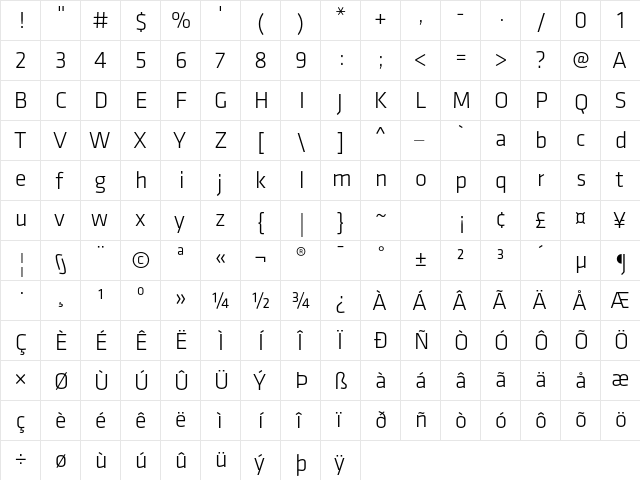
Klavika Light Plain
Design Context for Klavika Light Typeface
Klavika Light offers clean, dependable letterforms without strong stylistic allegiance, making it a practical choice for designers who need flexibility. Its slender proportions lend an understated elegance to any composition.
Pro Tip: Pair Klavika Light with a font of contrasting weight or personality to build a more expressive typographic hierarchy.